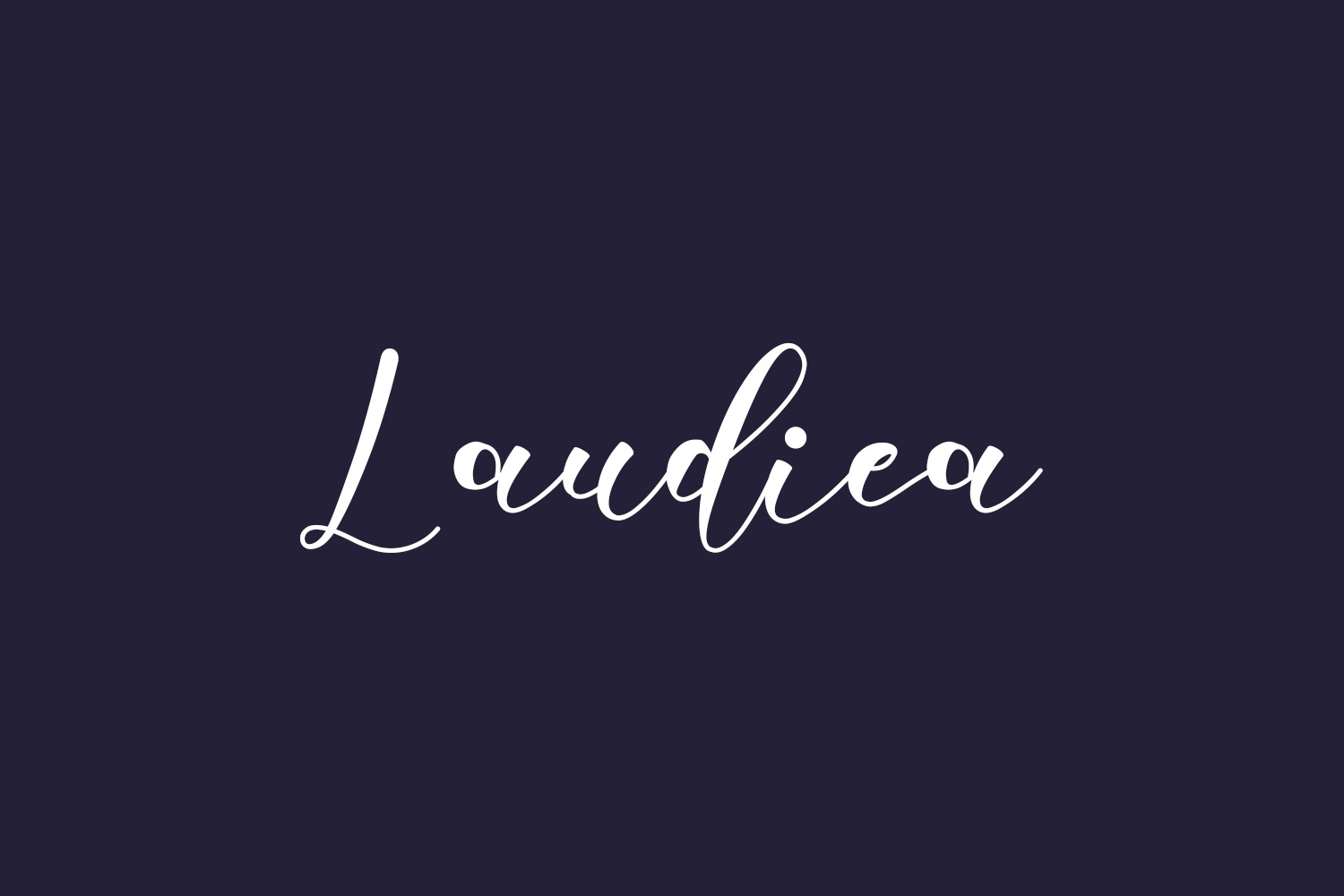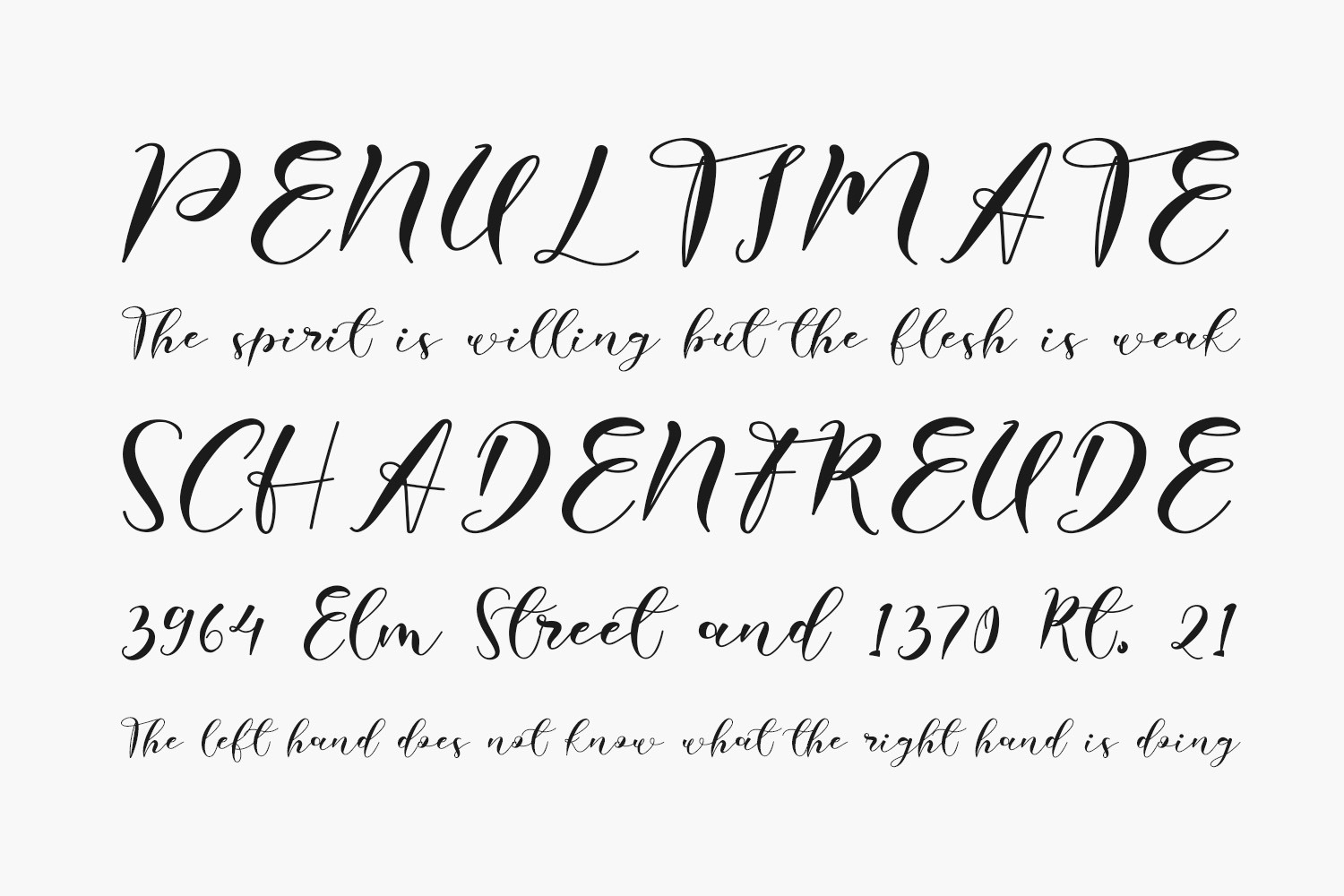
Laudiea Free Font is a beautiful script font with a classy, elegant, and modern look. It will add a handwritten touch to any design project. Laudiea Free Font was designed by NanaNissa and is free for personal use only. Please purchase the full version for commercial use.